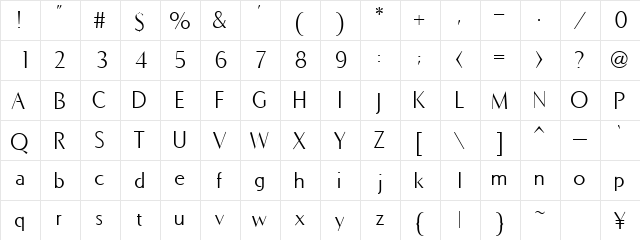
COM4t Fine Regular Regular
Design Context for COM4t Fine Regular Typeface
COM4t Fine Regular takes a measured approach to typography — its balanced proportions and neutral character make it a reliable workhorse for both digital and print work.